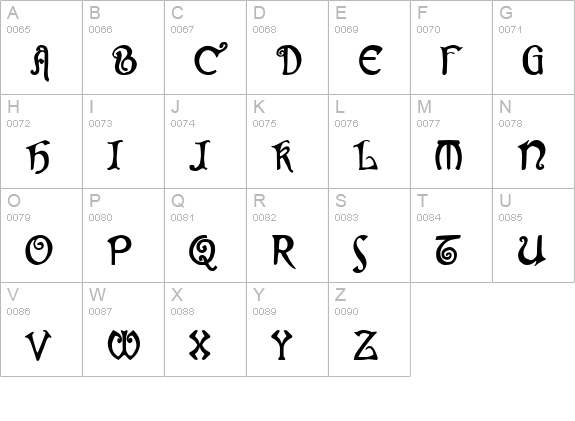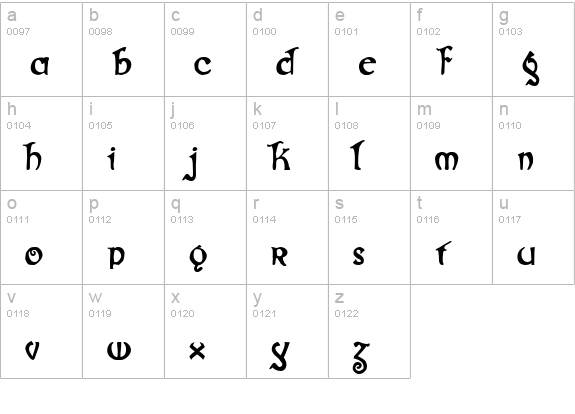
Gjallarhorn Font Details
Gjallarhorn font is a striking and bold typeface that exudes strength and elegance. Its sleek lines and sharp edges make it perfect for creating eye-catching designs that demand attention. This versatile font is suitable for a wide range of design projects, from branding to editorial layouts. What sets Gjallarhorn font apart is not only its unique aesthetic, but also the fact that it is available for free download at FontsMarket.com. This means that designers and creatives can easily access this stunning font and incorporate it into their work without any cost. Don't miss out on the opportunity to enhance your designs with the powerful presence of Gjallarhorn font - download it today and take your projects to the next level.